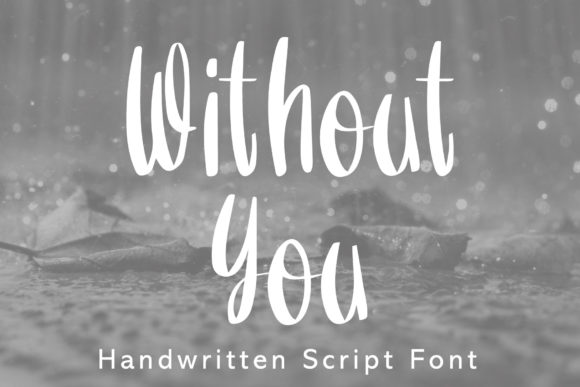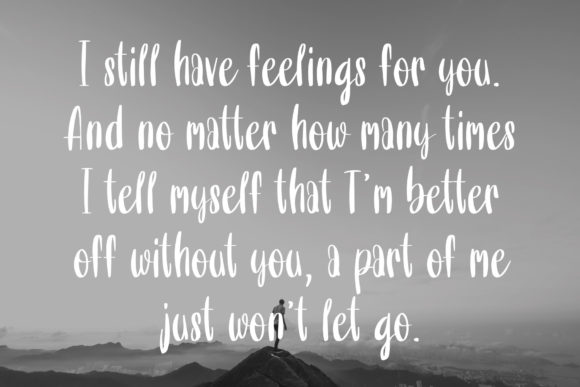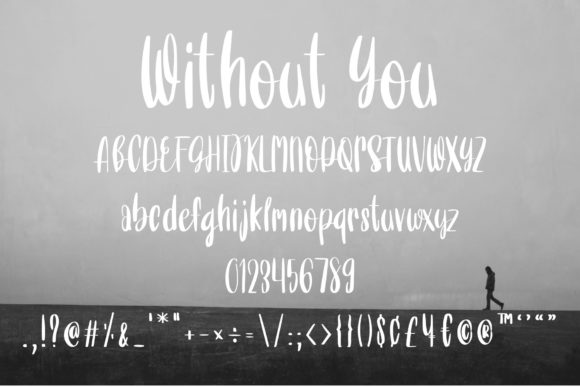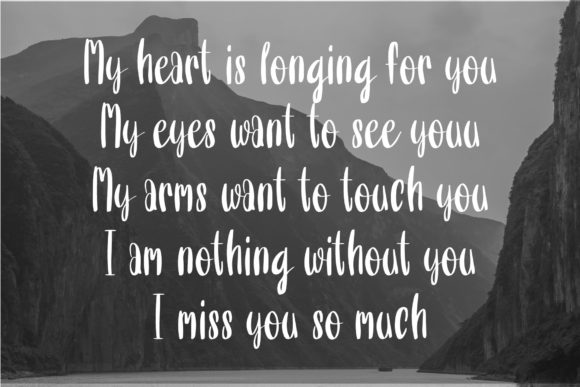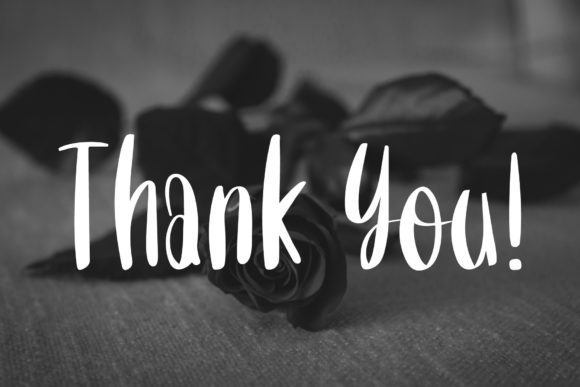
Without You Font
About Without You Font
Without You is a lovely and timeless handwritten font. It is the best choice for creating eye catching logos, branding and quotes. Every letter has a unique and beautiful touch, which will make your design come alive!